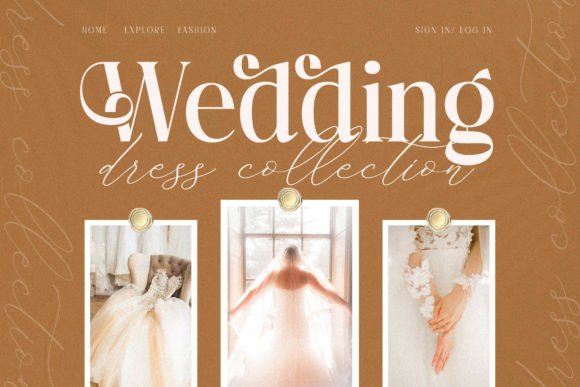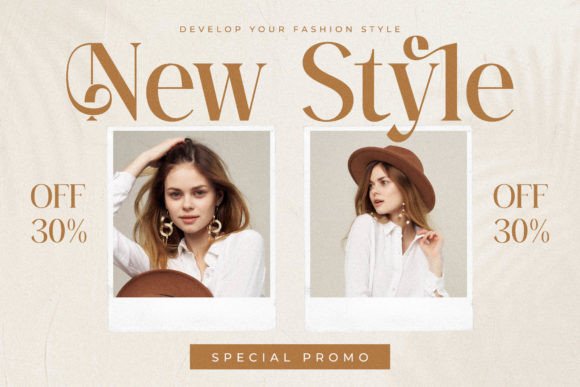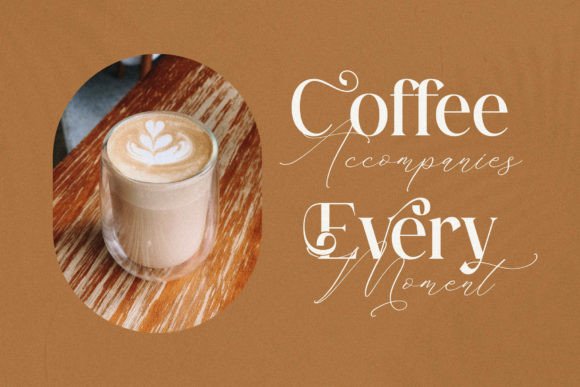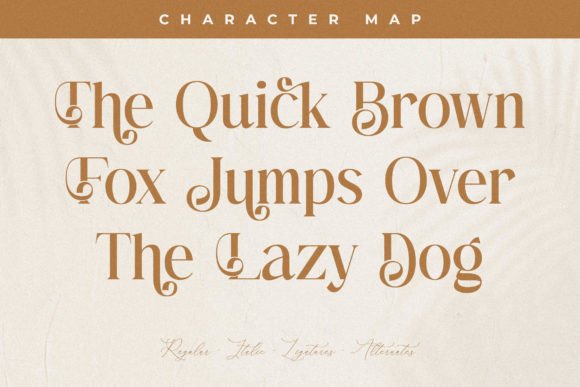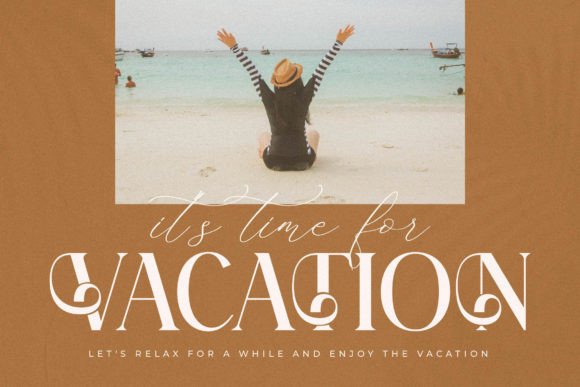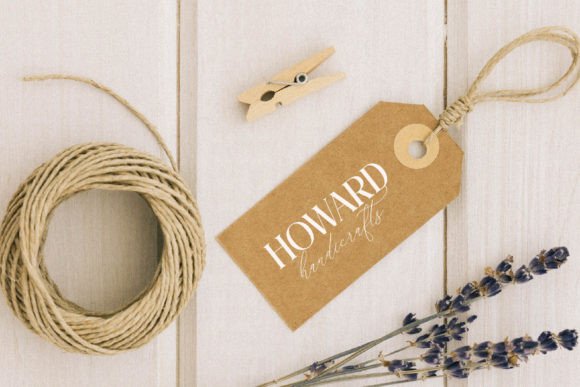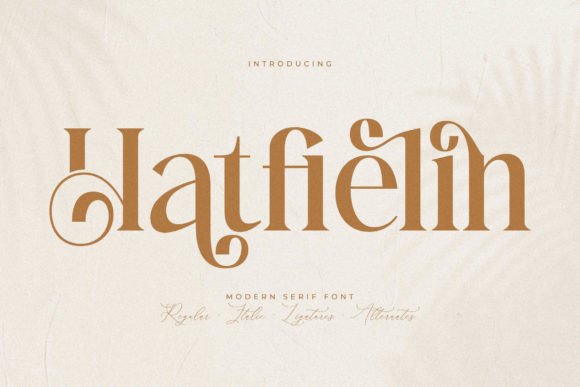
Introducing Hatfielin Font: Elevate Your Designs with Elegance and Sophistication
In the world of typography, a font can make or break a design. For designers and crafters seeking to add a touch of luxury and sophistication to their work, Hatfielin Font is an exceptional choice. This modern and stylish serif font boasts a unique appearance that sets it apart from more traditional typefaces. Whether you’re creating an elegant logo, designing a fashion brand’s visual identity, or crafting a visually stunning magazine, Hatfielin Font is the perfect companion for your creative journey.
The Essence of Hatfielin Font
Hatfielin Font is characterized by its sleek lines, refined details, and classic serif structure. This font is not just a means of communication; it’s an expression of style and elegance. Its modern approach to traditional serif fonts makes it versatile and adaptable to a wide range of design applications. From luxury brands to fashion magazines, and from apparel designs to inspirational quotes, Hatfielin brings a level of sophistication that elevates any text to a statement piece.
Perfect for Elegant and Luxurious Designs
One of the standout features of Hatfielin Font is its ability to convey luxury and elegance. For brands and designers aiming to create a high-end feel, this font is an invaluable asset. Its unique serifs and balanced letterforms ensure that every word looks premium and refined. This makes Hatfielin particularly suited for:
• Elegant Logos: Create a lasting impression with a logo that exudes sophistication and style.
• Fashion Brands: Perfect for branding that requires a touch of glamour and modernity.
• Magazines: Add a classy touch to your editorial designs, making them stand out.
• Apparel: Elevate your fashion designs with typography that’s as stylish as the garments themselves.
• Lettering and Quotes: Transform inspirational quotes and letters into beautiful pieces of art.
Why Choose Hatfielin Font?
With so many fonts available, why should Hatfielin be your go-to choice? Here are a few compelling reasons:
• Unique Appearance: Hatfielin offers a fresh take on serif fonts, ensuring your designs stand out.
• Versatility: Its adaptability makes it suitable for a wide array of projects, from digital to print.
• Elegance: It brings an unmatched level of sophistication to any design, perfect for luxury and fashion brands.
• User-Friendly: Designed to be easy to read and visually appealing, making it a pleasure to work with.
Tips for Using Hatfielin Font Effectively
To maximize the impact of Hatfielin Font in your designs, consider the following tips:
• Pair it with Simplicity: Let Hatfielin be the focal point by pairing it with simpler fonts or backgrounds.
• Experiment with Sizes: Play with different sizes to create visual hierarchy and emphasis.
• Color Matters: Choose colors that complement the elegance of Hatfielin, such as neutrals or rich jewel tones.
• Be Creative with Ligatures: If Hatfielin offers ligatures, use them to add a creative flair to your text.
Hatfielin Font is more than just a typeface; it’s a design statement. Its modern serifs and elegant lines make it the perfect choice for designers and crafters looking to infuse their work with luxury and sophistication. Whether you’re working on a high-end brand identity, a fashion magazine, or simply looking to add some elegance to your quotes and letters, Hatfielin Font is sure to exceed your expectations. Embrace the world of premium typography with Hatfielin and elevate your designs to new heights of style and sophistication.